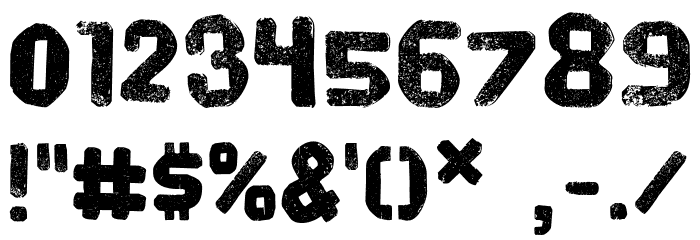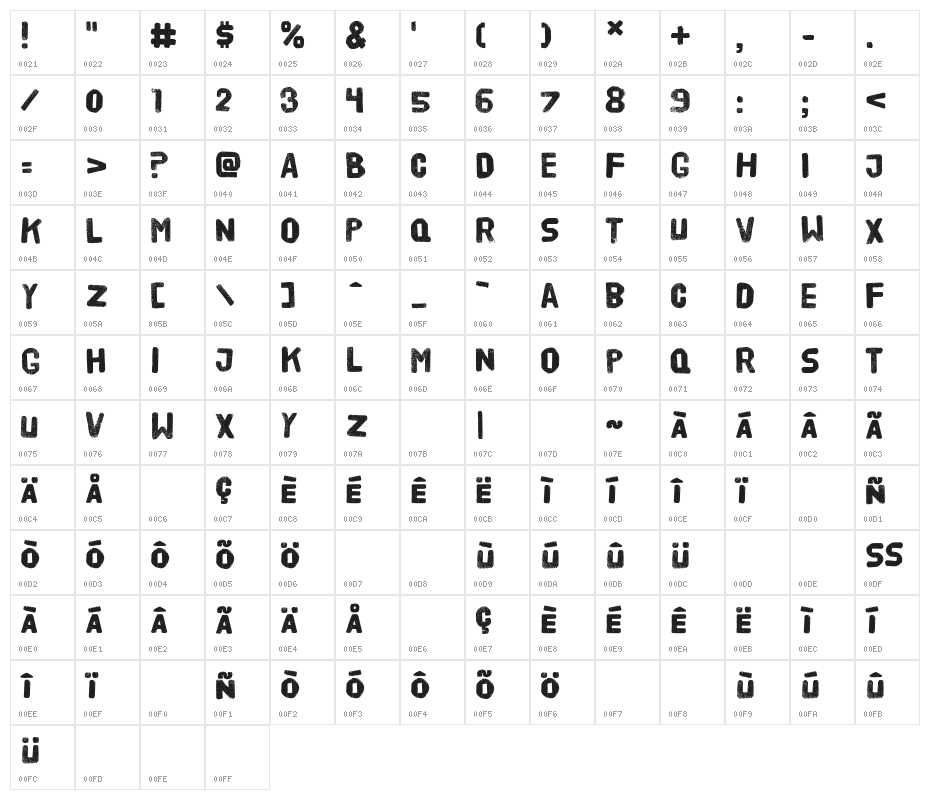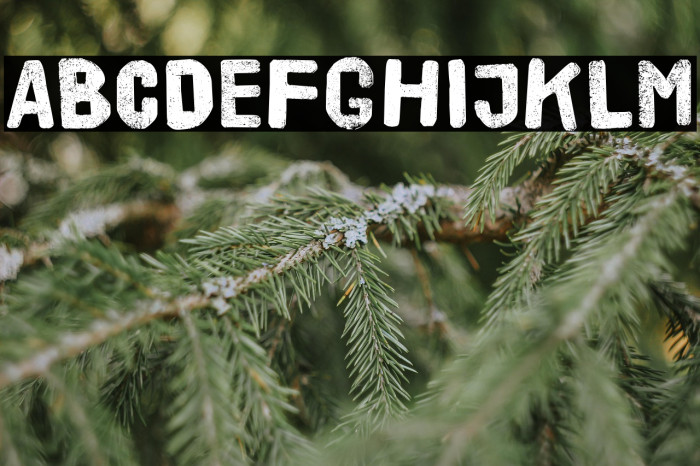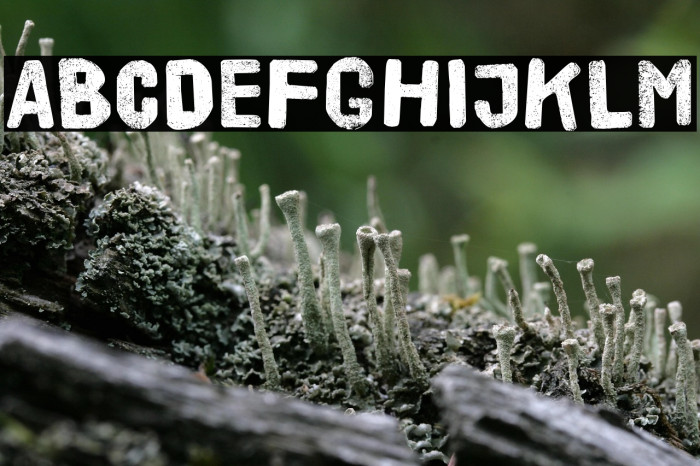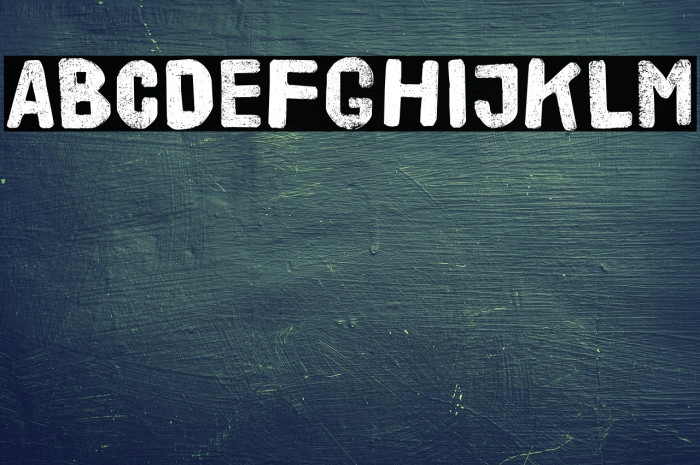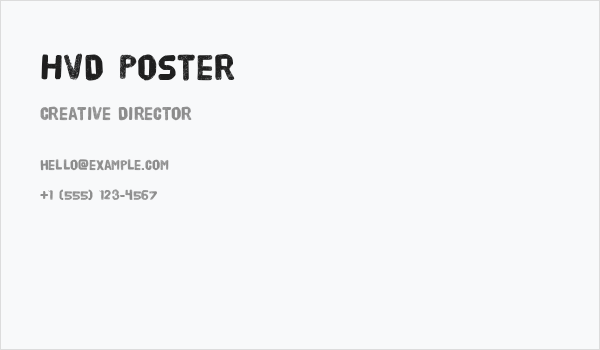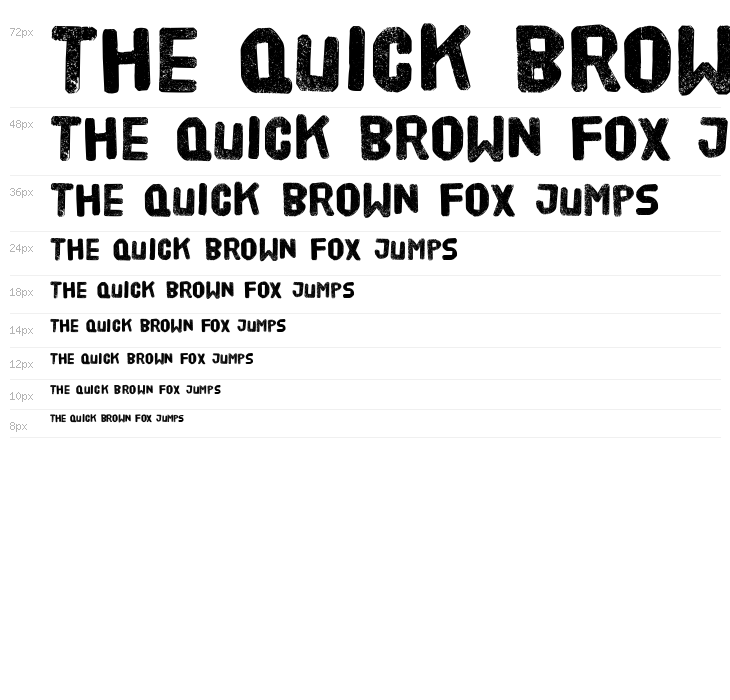
HVD Poster Font
HVD Poster Description
This font features a bold, distressed style with a textured appearance that mimics the look of worn or aged print. The characters are thick and blocky, with a slightly uneven edge that adds to the rugged, vintage feel. The uppercase and lowercase letters maintain a consistent weight, while the numbers and special characters share the same distressed aesthetic. This font is ideal for projects that require a strong, impactful look with a touch of nostalgia or grunge.
| Proposed Projects | Ideal for posters, album covers, branding for vintage-themed products, or any design needing a bold, retro look. |